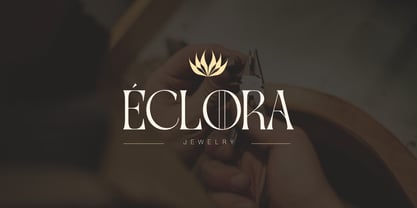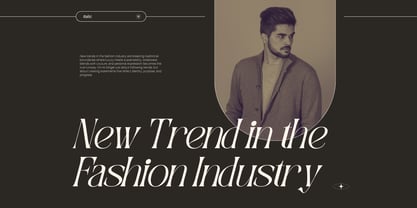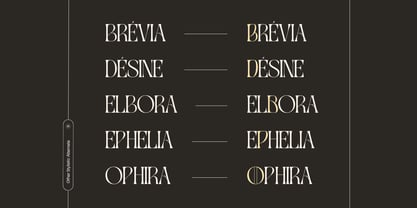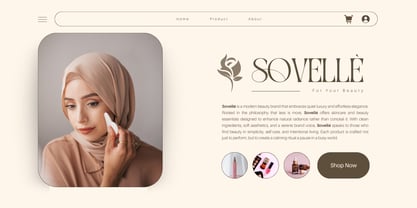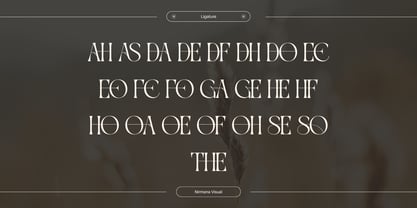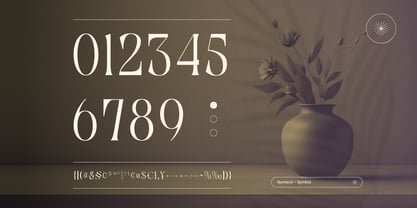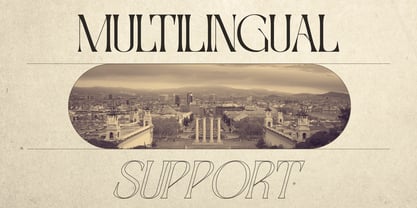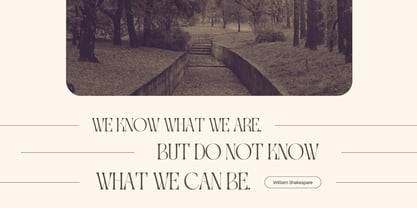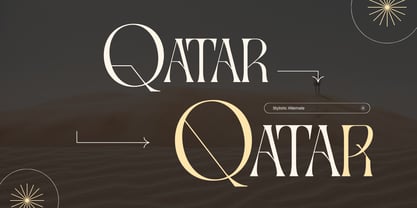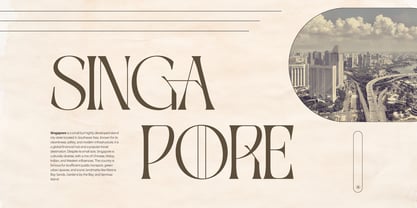
Gavona Elegant
by Nirmana Visual
The Gavona Elegant Font Family was designed by Sigit Dwipa and published by Nirmana Visual. Gavona Elegant contains 2 styles and family package options. More about this family
Introducing a modern serif font designed for timeless elegance and powerful branding. With refined, stylish curves and high contrast strokes, this font blends classic charm with a contemporary touch—perfect for logos, branding, and editorial design. Available in Regular and Italic styles, it offers versatility and sophistication, making every project look polished, professional, and uniquely memorable.
Designers: Sigit Dwipa
Foundry: Nirmana Visual